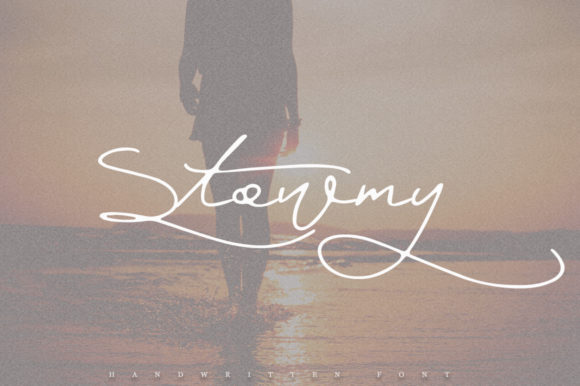
Welcome to the world of Stowmy Font, where elegance meets charm. This enchanting script font, meticulously crafted by Katie Holland, is the perfect choice for designers seeking a touch of sophistication and authenticity in their creations. Immerse yourself in the world of flowing lines and graceful curves, where simplicity meets artistry.
Stowmy Font's light and elegant character brings an effortless touch of sophistication to any design project. Its charming personality adds a hint of warmth and friendliness, making it the ideal choice for creating designs that resonate with your audience. Whether you're working on wedding invitations, branding materials, or social media graphics, Stowmy Font will elevate your designs to new heights.
Step into a world of endless possibilities with Stowmy Font. Explore the beauty of handwritten calligraphy, where each letter dances across the page with grace and fluidity. Its versatility knows no bounds, making it the perfect fit for a wide range of design projects. From elegant logos to heartfelt greeting cards, Stowmy Font will transform your words into works of art.
Indulge in the beauty of Stowmy Font and unleash your creativity. Its effortless sophistication will captivate your audience, leaving a lasting impression that speaks volumes. Let your designs bloom with elegance and charm as you embrace the enchanting world of Stowmy Font. Immerse yourself in the world of Stowmy Font and let your creativity take flight.